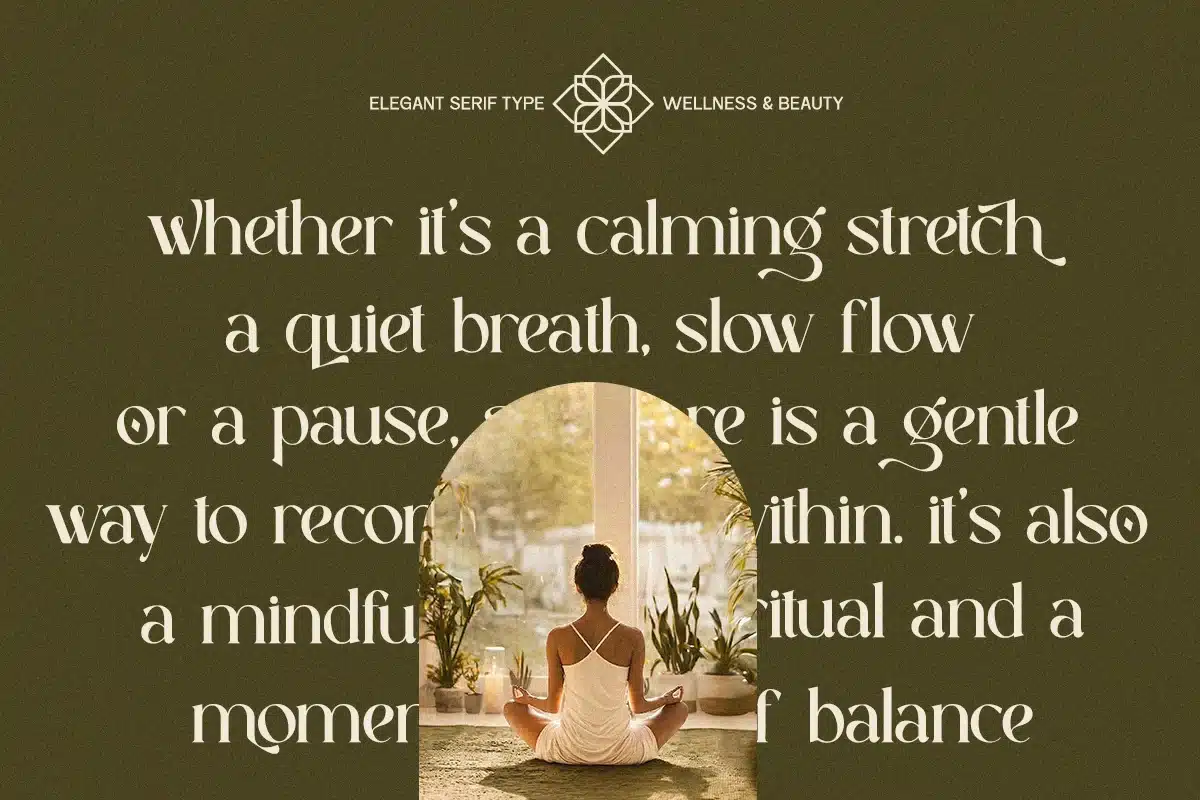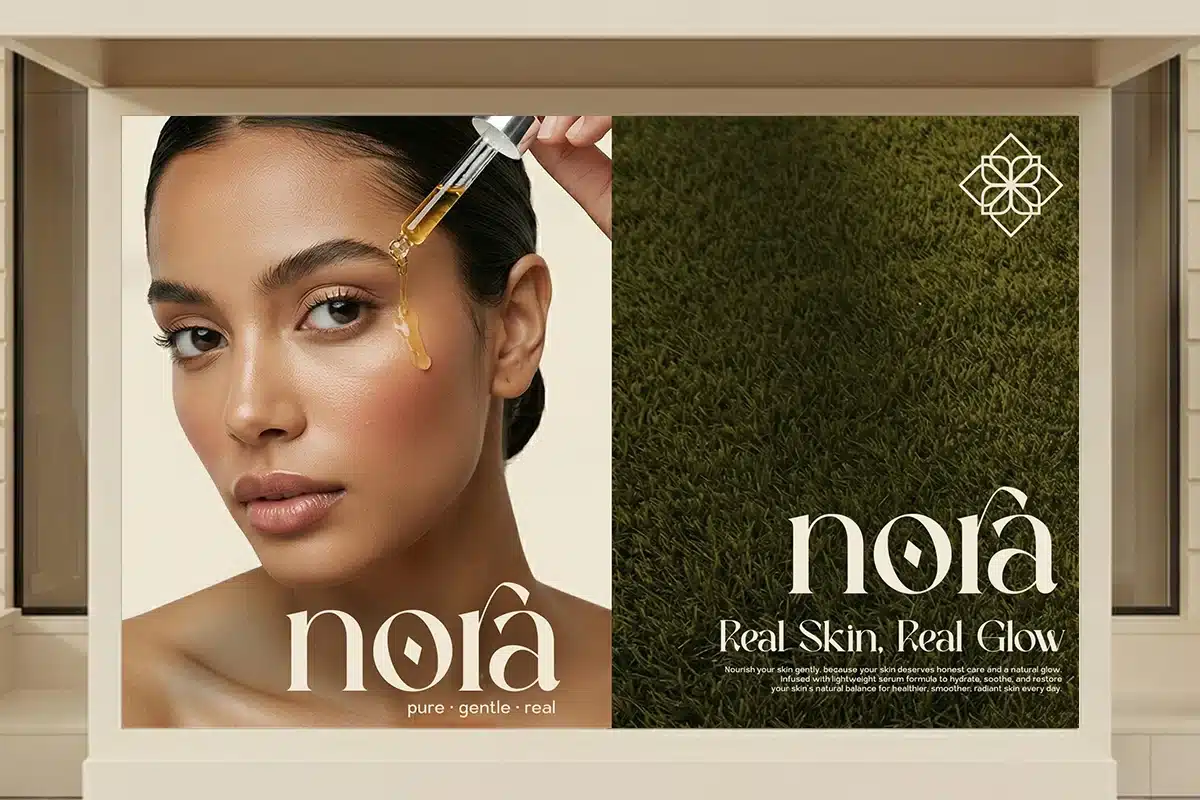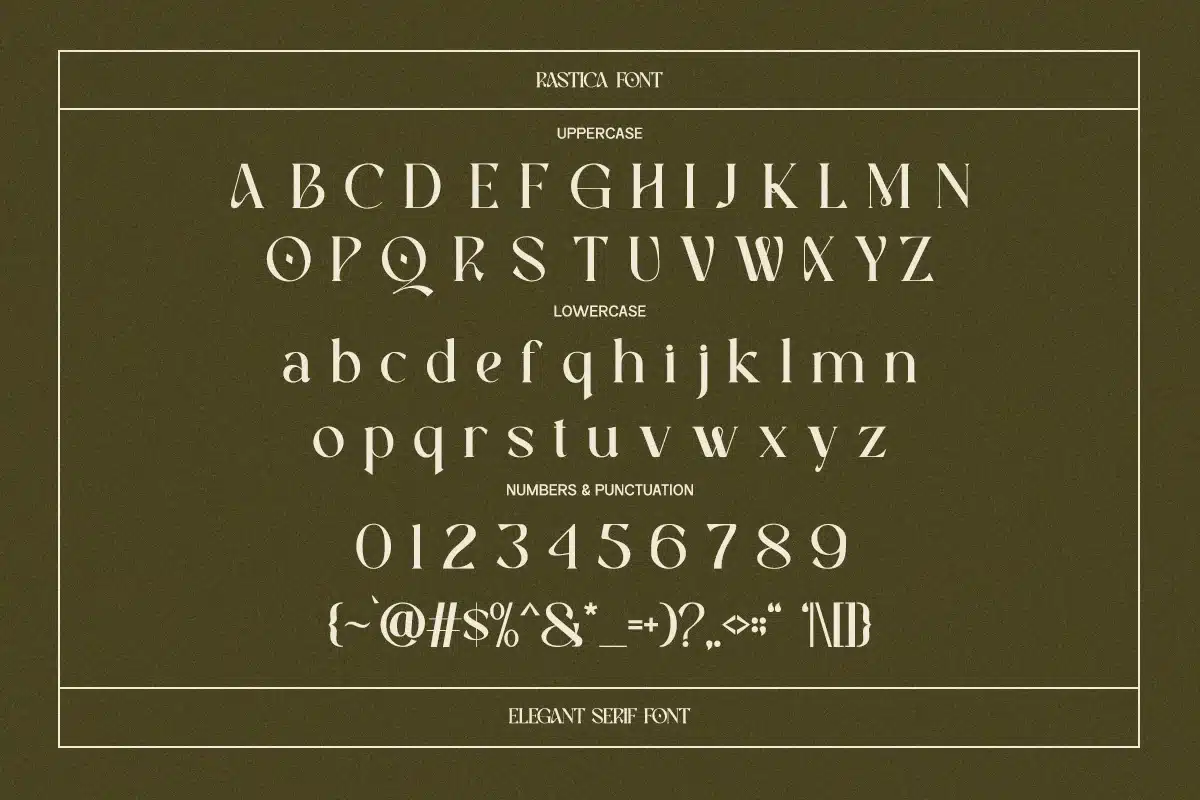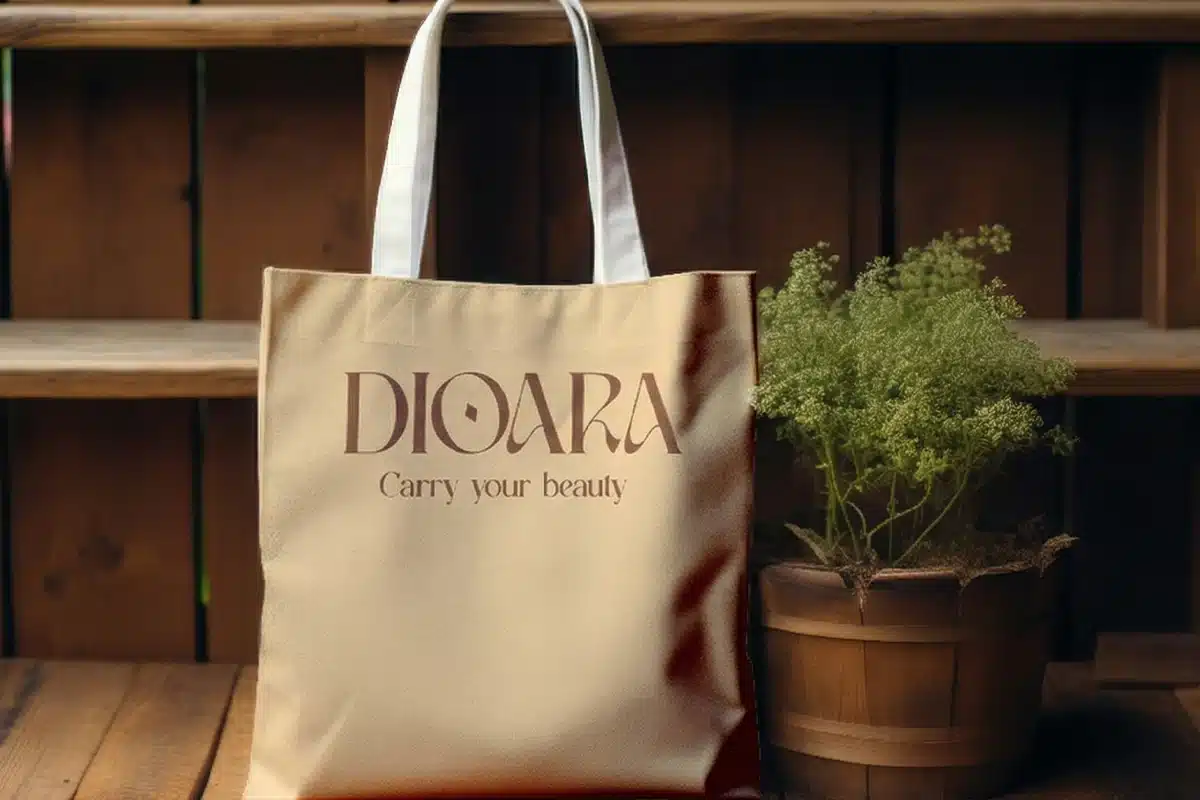
Elegant Lavish Font – Rastica
Rastica is a modern elegant serif font designed to bring a refined and luxurious touch to your creative projects. With its graceful curves, high-contrast strokes, and stylish alternates, this font delivers a sophisticated aesthetic that stands out in premium branding and editorial design.
Crafted with 23 unique alternates and italic styles, Rastica offers versatility for creating distinctive logos, beauty and skincare branding, fashion editorials, wedding invitations, and high-end packaging. Its balanced letterforms and smooth flow make it ideal for both display and headline use while maintaining excellent readability.
Perfect for designers seeking a classy, feminine, and timeless serif, Rastica elevates any project with a calm, elegant presence. Whether you’re building a luxury brand identity or designing stylish marketing materials, this font ensures a polished and professional result.
- Elegant serif style
- 23 alternates for creative flexibility
- Perfect for luxury, beauty, skincare, and fashion branding